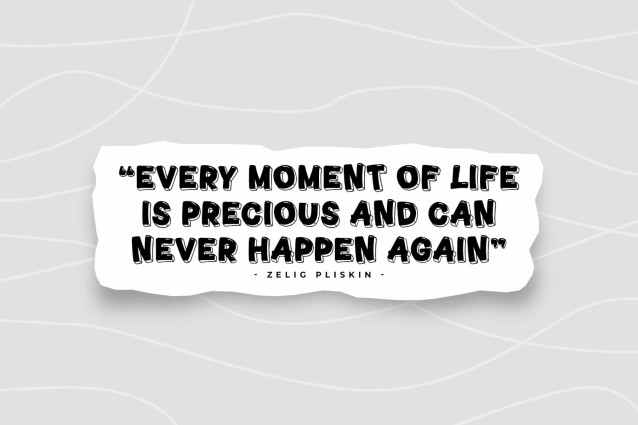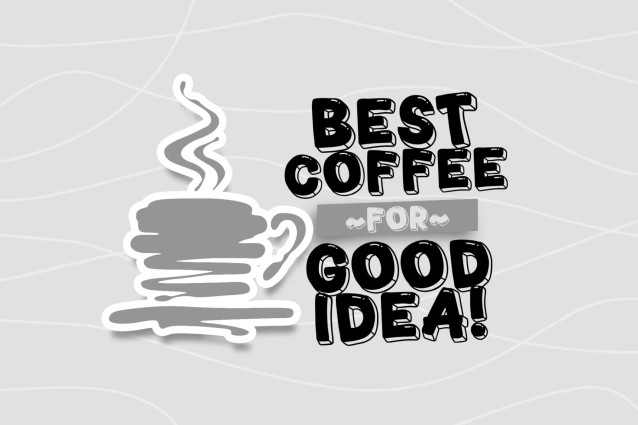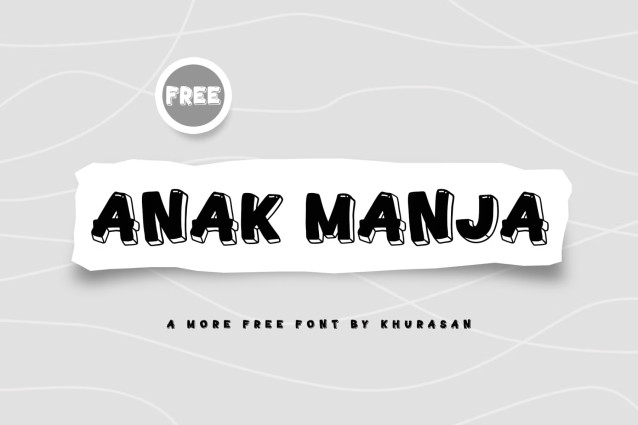
Breathe an air of relaxed, casual energy into your layouts with Anak Manja, a wonderfully expressive display typeface. This modern handwritten font balances smooth, medium-weight marker strokes with playful, organic curves and mismatched mixed-case baseline heights that mimic natural handwriting on the fly.
With its approachable visual posture and effortless legibility, Anak Manja is the premier choice for indie lifestyle branding, boutique artisanal product packaging, casual book title headers, custom greeting cards, and high-impact social media quotes.